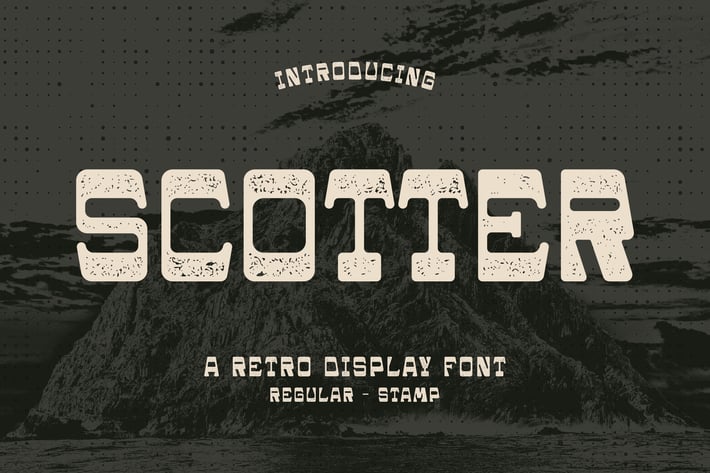
Scotter - Retro Font
Scotter - Retro Font contains a lowercase, uppercase, symbol, and also supports multi-language. There’s a lot of ligature in this font. Scotter - Retro Font also comes with ligatures, stylistic alternates, and many more.
this font is suitable for fashion, branding, catalog, and other designs that you want.